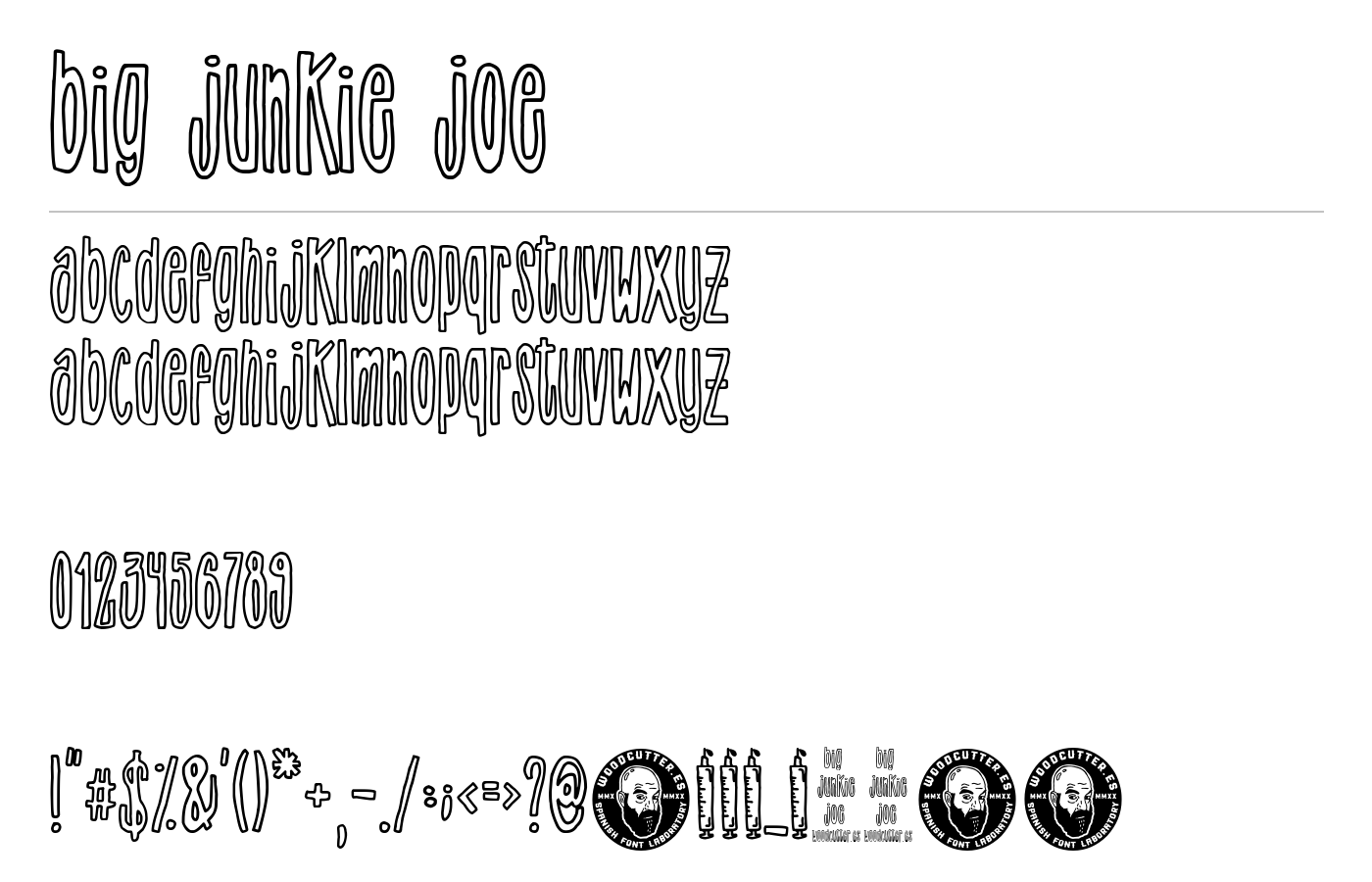
Big Junkie Joe is a playful, narrow sans serif font characterized by its tall, condensed letterforms and hand-drawn, outline style. Its quirky, uneven strokes and high x-height give it a casual, fun personality, making it ideal for creative projects that want to stand out with a distinctive, informal look. This font works best for headlines, logos, and packaging where a unique, eye-catching vibe is desired.
big Junkie Joe Font
About big Junkie Joe Font